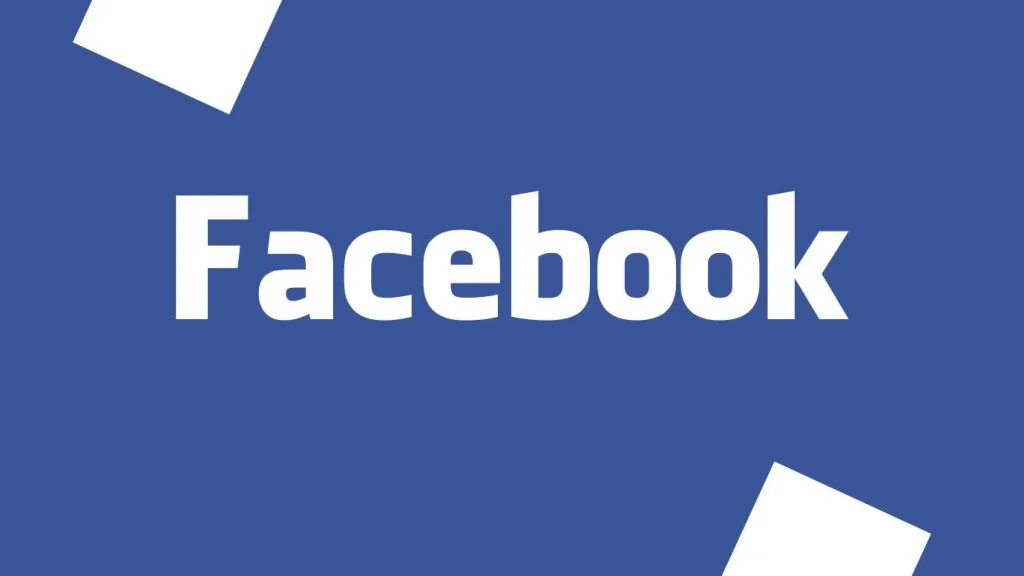
Latvian design studio designed the Facebook Font style, basically Facebook uses the Klavika bold in their logo that belongs to the Sans serif category.
All multinational organizations, utilize this typeface for different plans like dress printing, vehicle wraps, and others. The typeface can be used for digital as well as print projects.
You will be able to use this typeface in an extensive variety of languages and will be able to access a few innovative typographic features which will make your designs more versatile.
Facebook Font can be an incredible choice for any task that needs a touch of high class. There are a lot of organizations that use this typeface. Various institutions can use this font to create their logos.
This typeface can be used for a wide range of projects, including eBooks, posters, banners, brochure layouts, and much more. Photoshop, Adobe Illustrator, and Adobe Acrobat Reader are all compatible with this typeface.
Features of Facebook Font
An attractive texture design can be seen in this typeface. This style can be found on magazine covers, book covers, and website designs. This typeface is creative and unique and would be perfect for a personal touch in any design project.
It has been extensively used by graphic designers, professionals, and web designers, and people have given the designer of this style the highest praise.
There are many design applications for typefaces, such as magazines, posters, branding, etc. Under your project, you can join in it with any design. The pairing of this typeface with the monopoly font opens up opportunities to craft exceptional displays.
It is possible to create some great displays when you pair this typeface with another. The typeface could also be used with another vintage-style typeface to achieve a unique look.
Facebook Font
Is Facebook Font an old font?
No, the Facebook Font is not an old typeface. It is a new typeface and also perfect for multiple types of designs, and projects.
Is Facebook Font a Sans serif font?
Yes, this font belongs to the sans serif texture family and has a neat and good-looking texture that will help you to create elegant projects.
Is Facebook Font good for headings?
Yes, this typeface is good for headings. This typeface is also good for shop names,  posters, product packaging, invitation cards, logos, and fashion designs.
Who owns the Facebook typeface?
Latvian design studio designed the Facebook typeface, basically Facebook uses the Klavika bold in their logo that belongs to the Sans serif category.